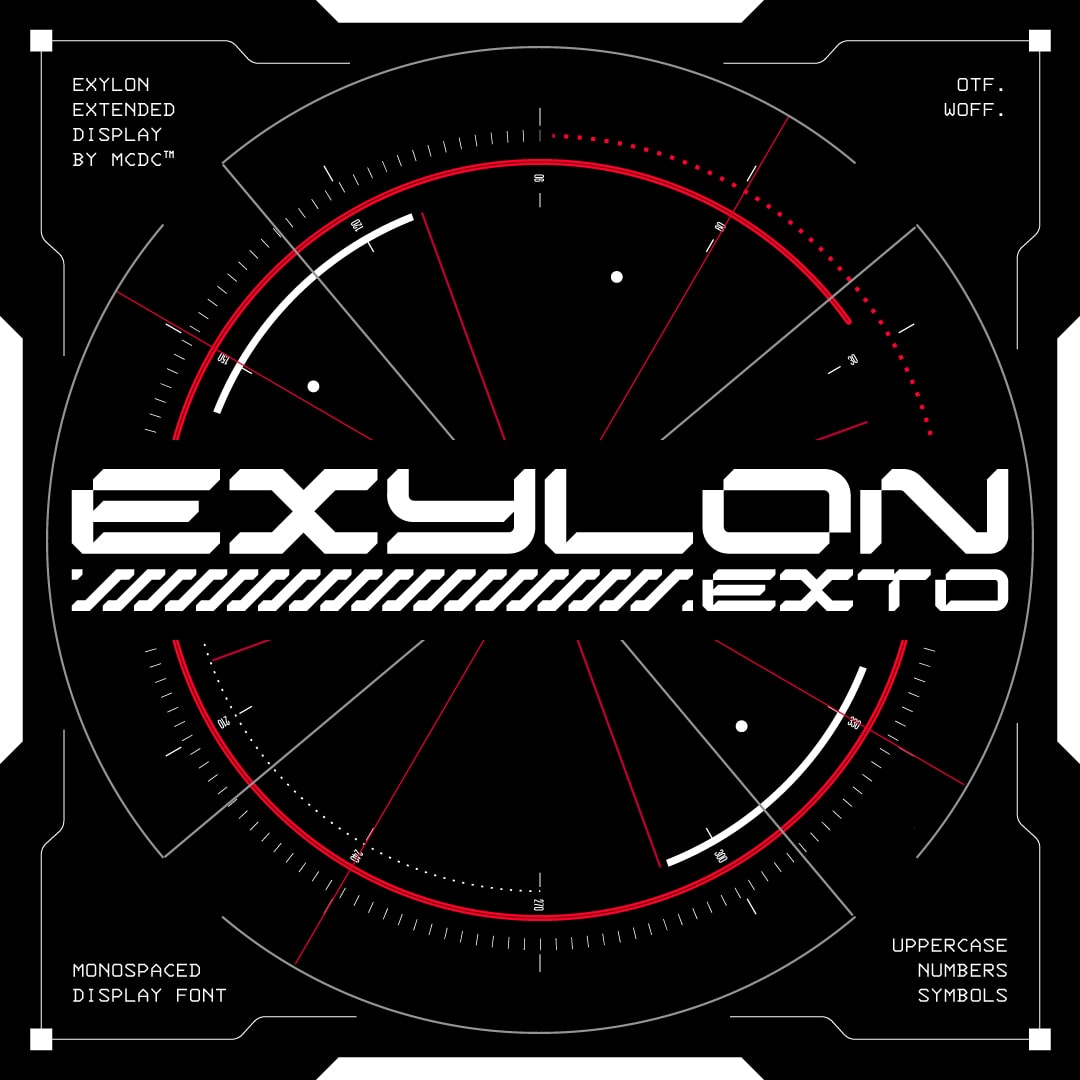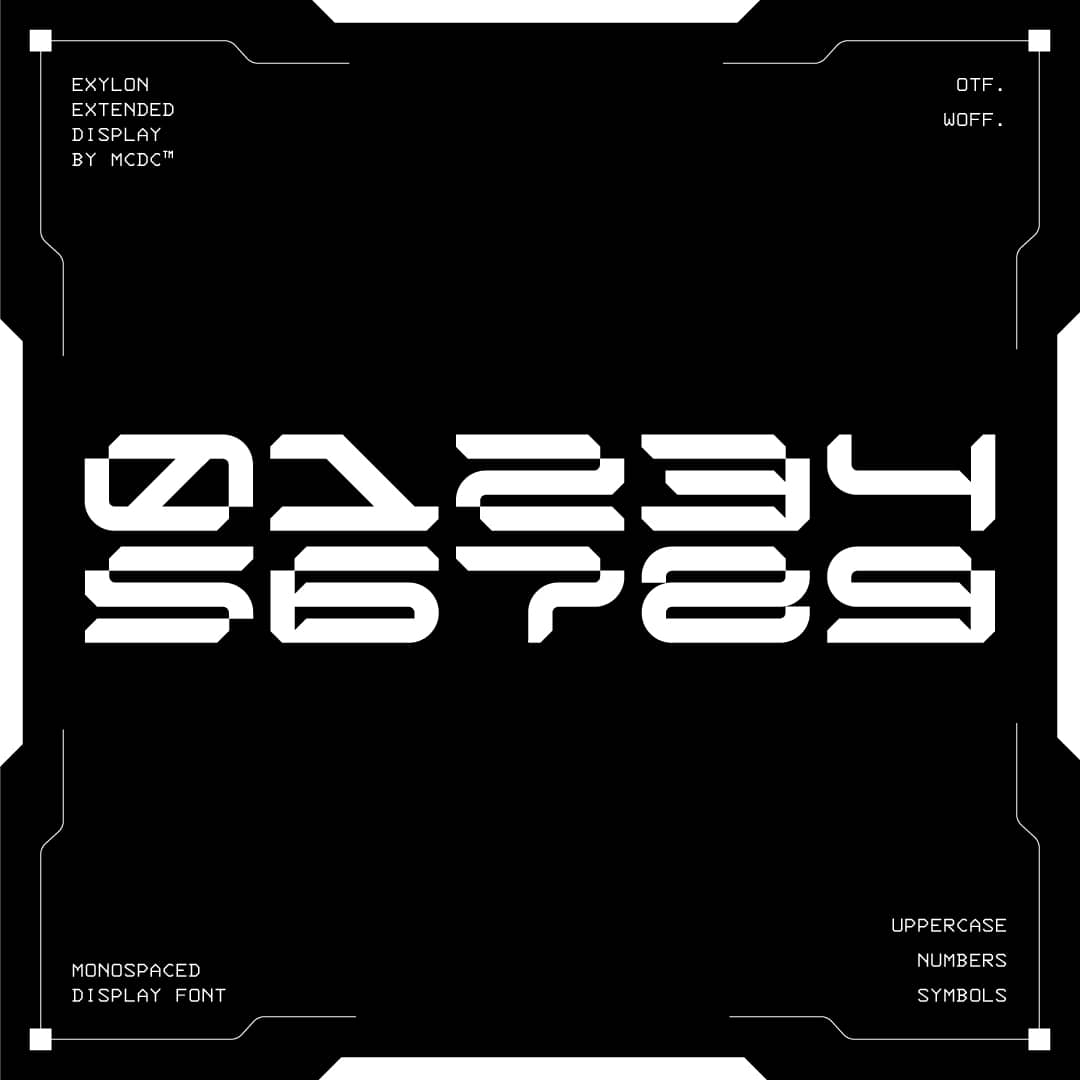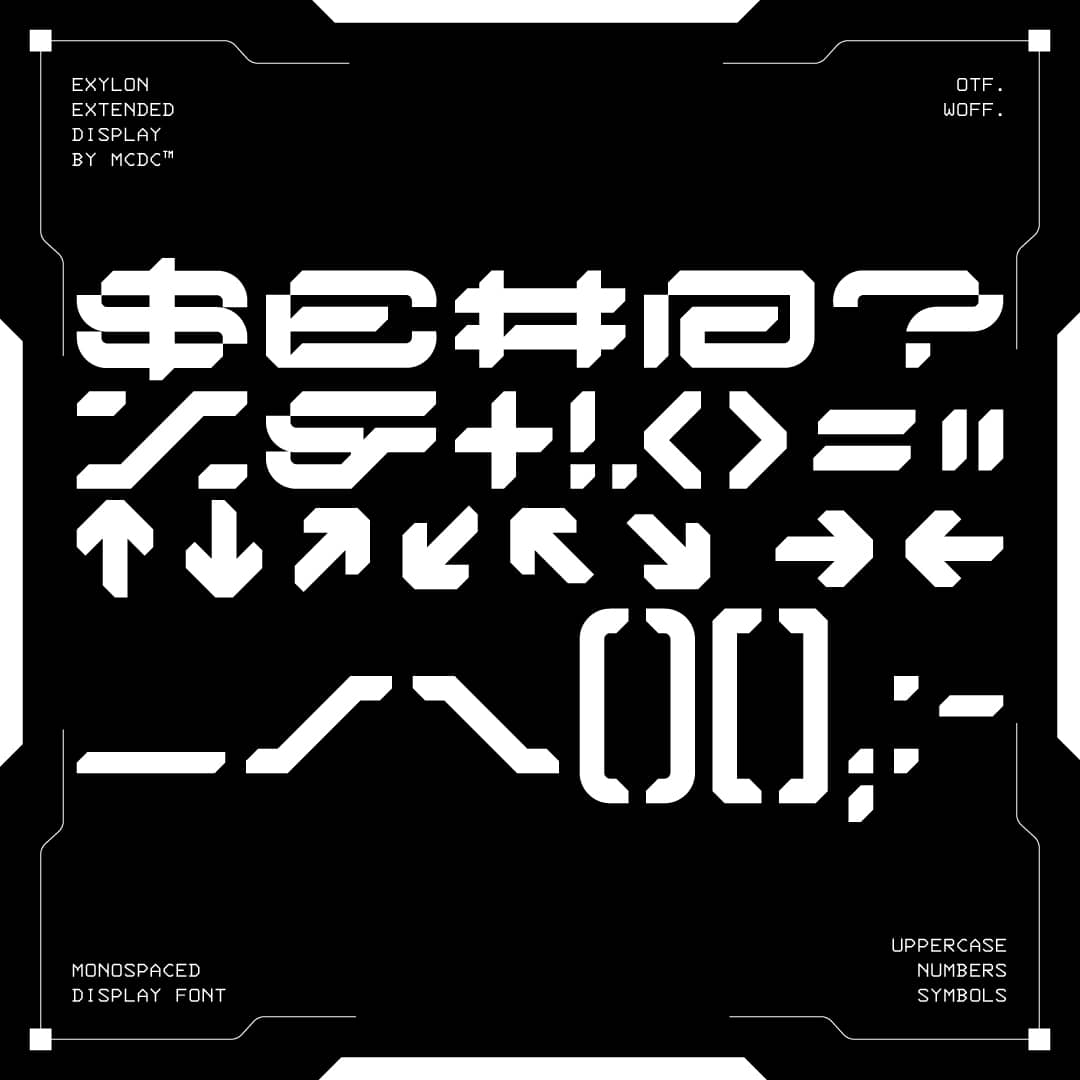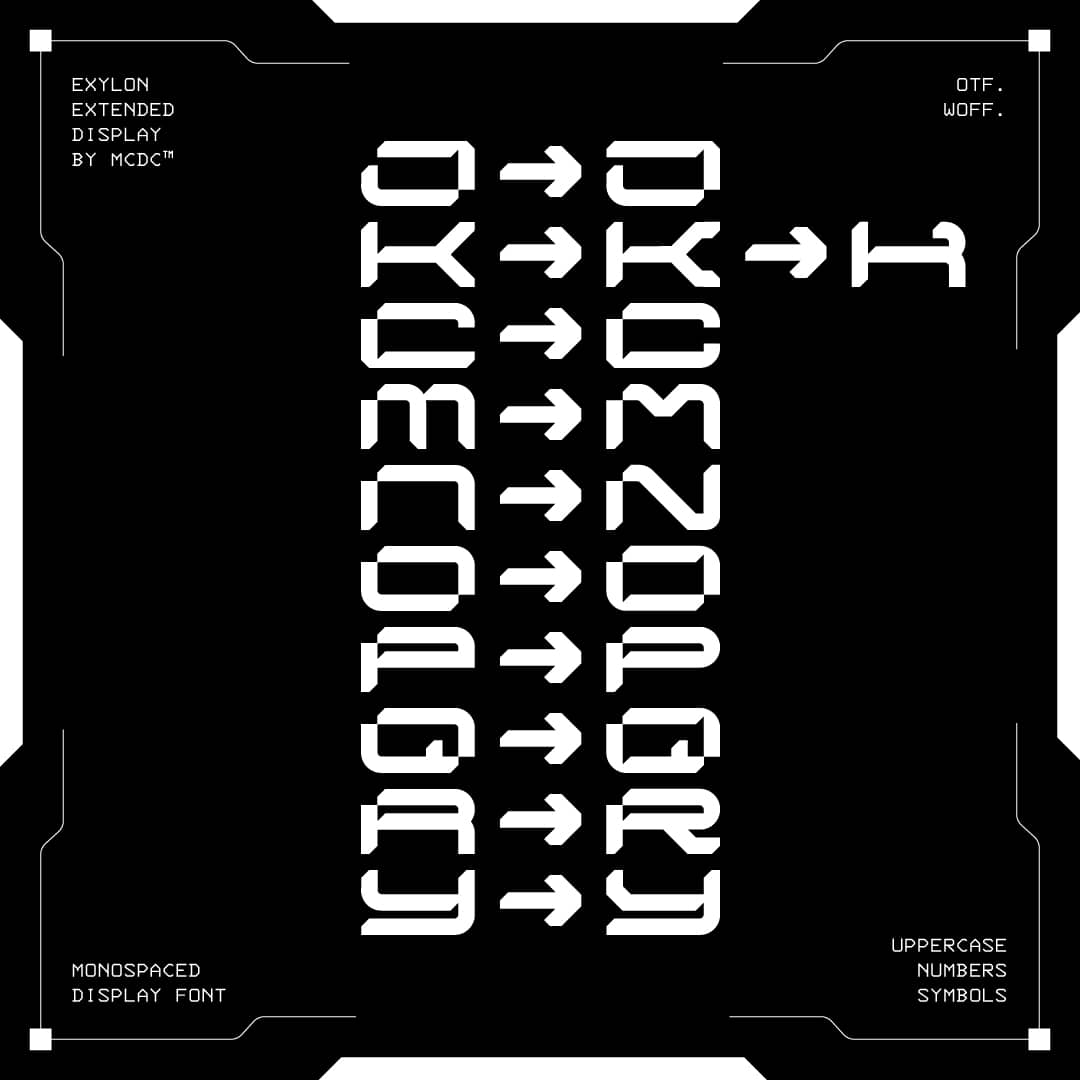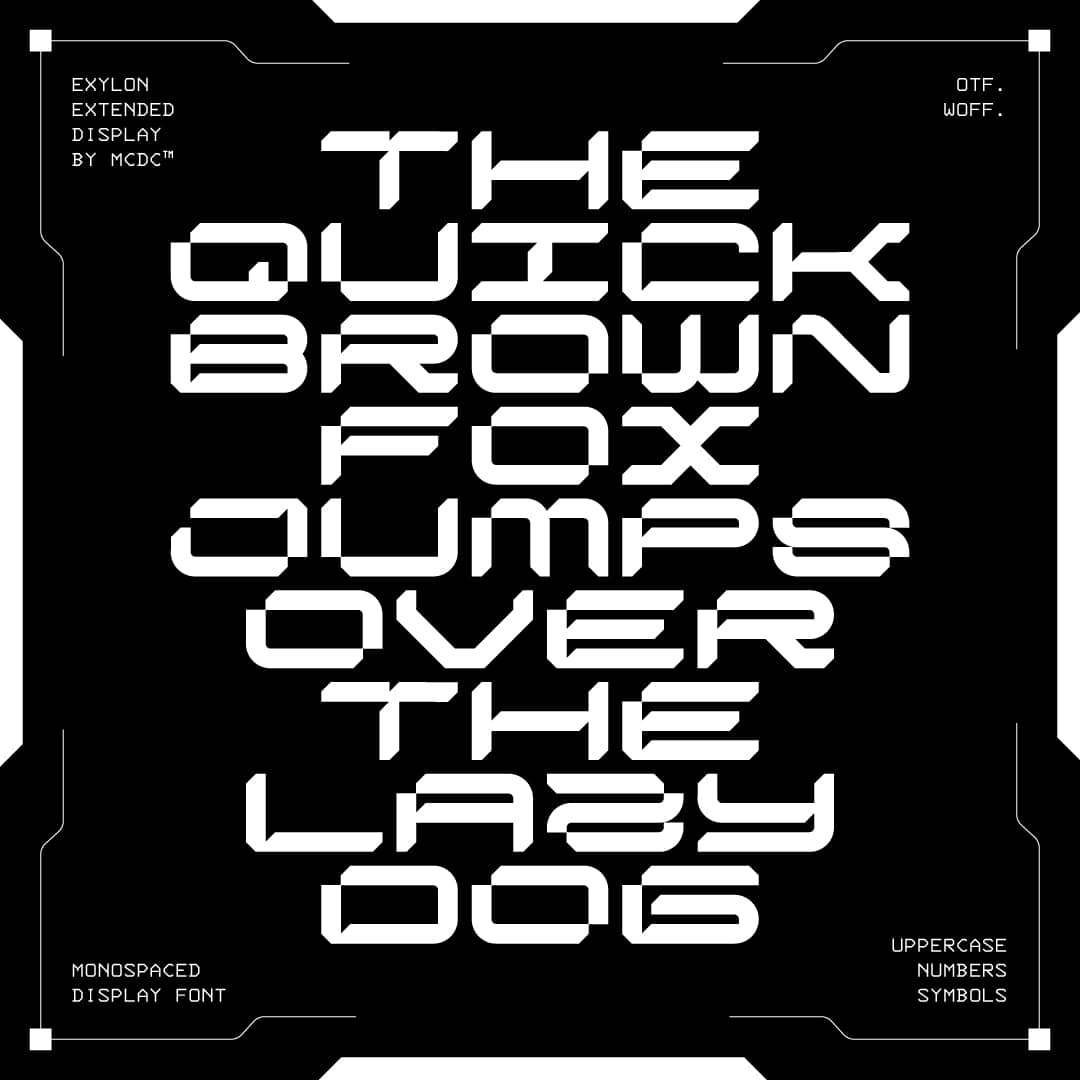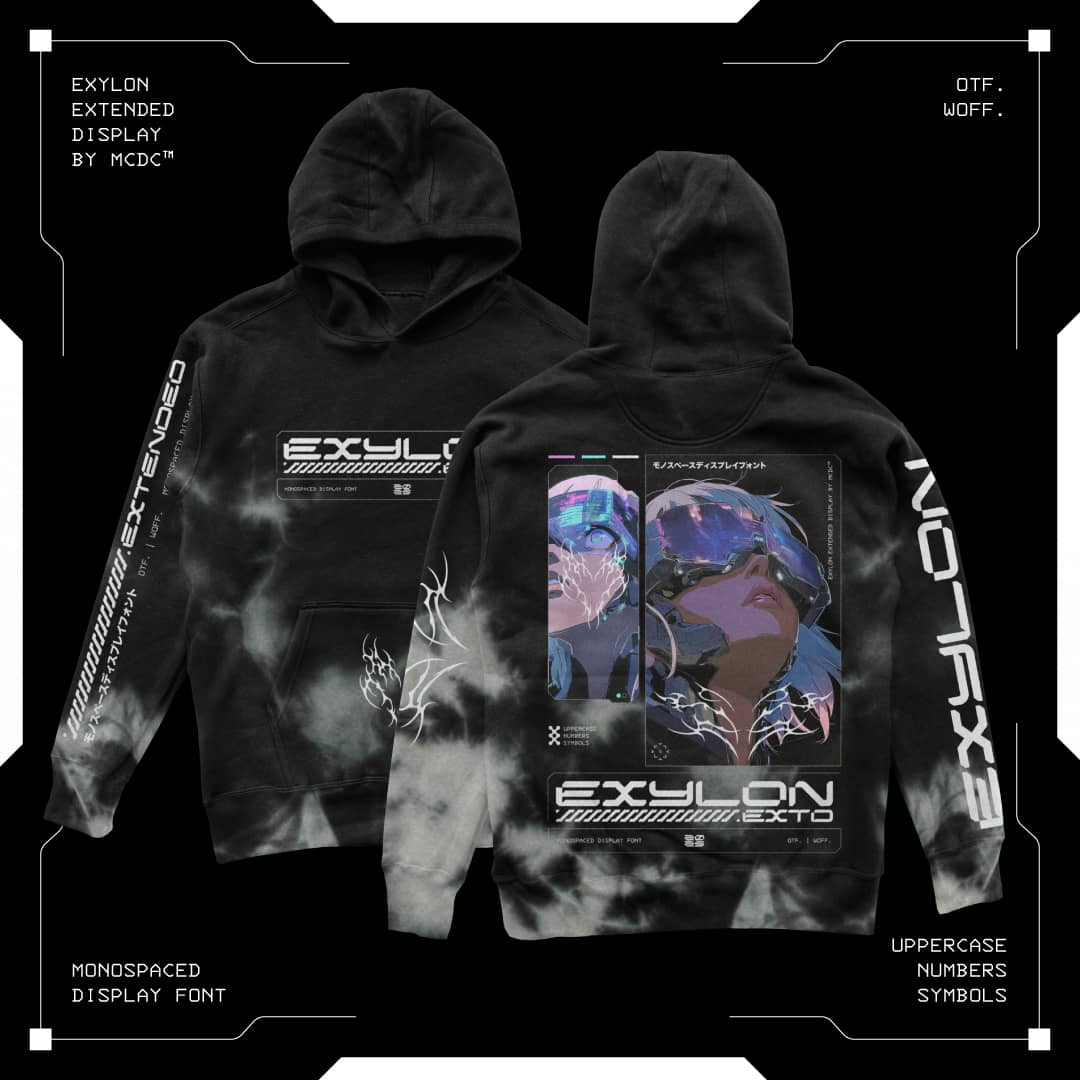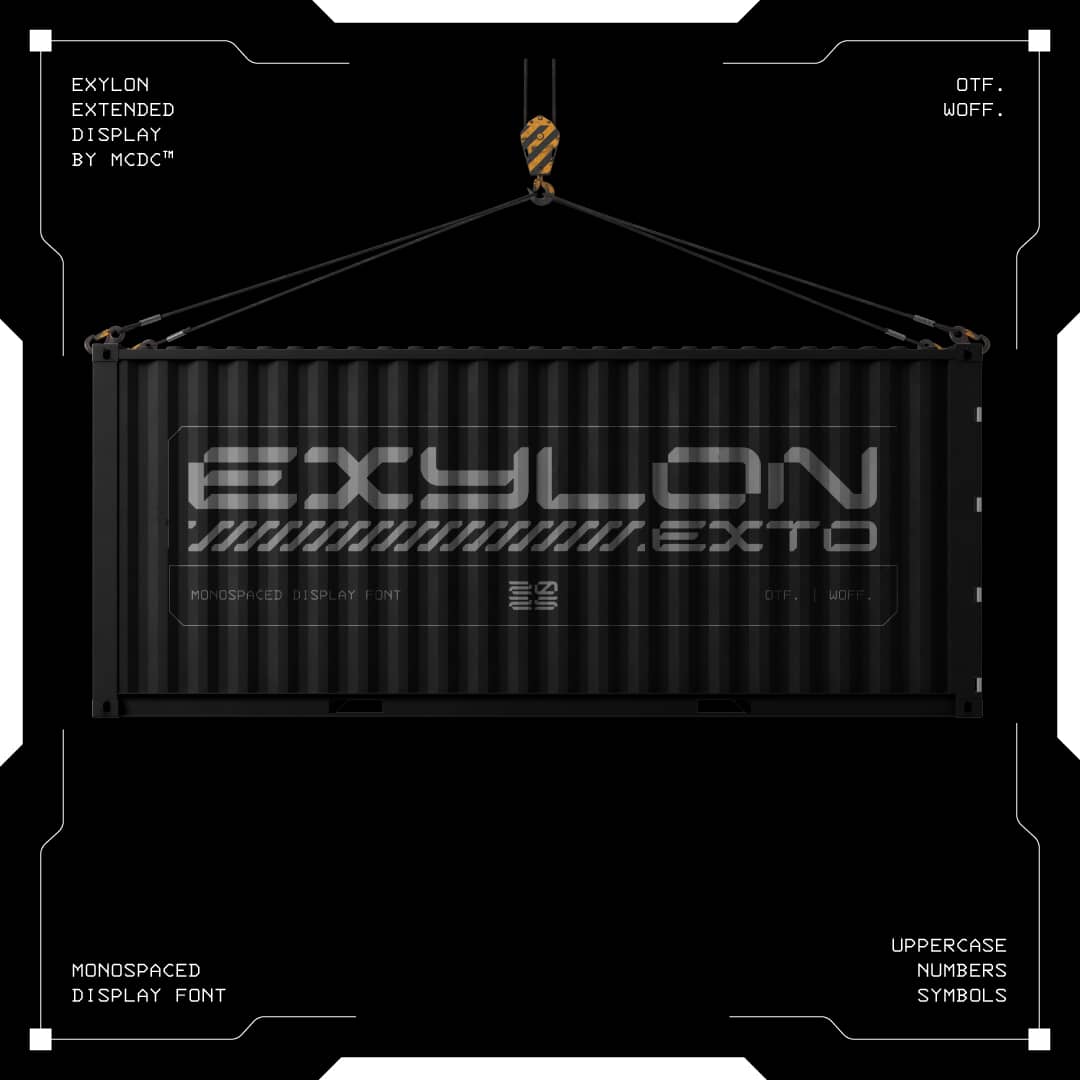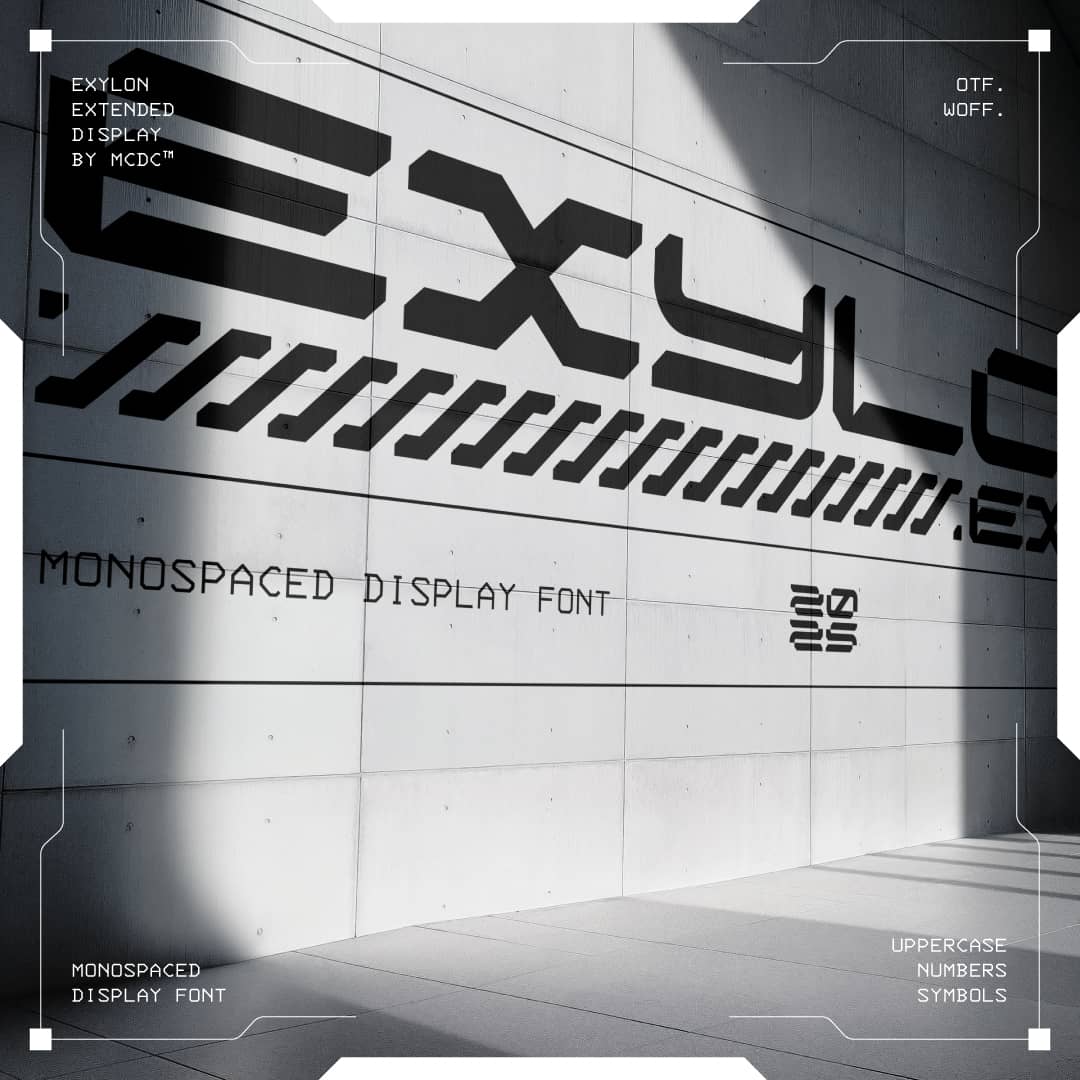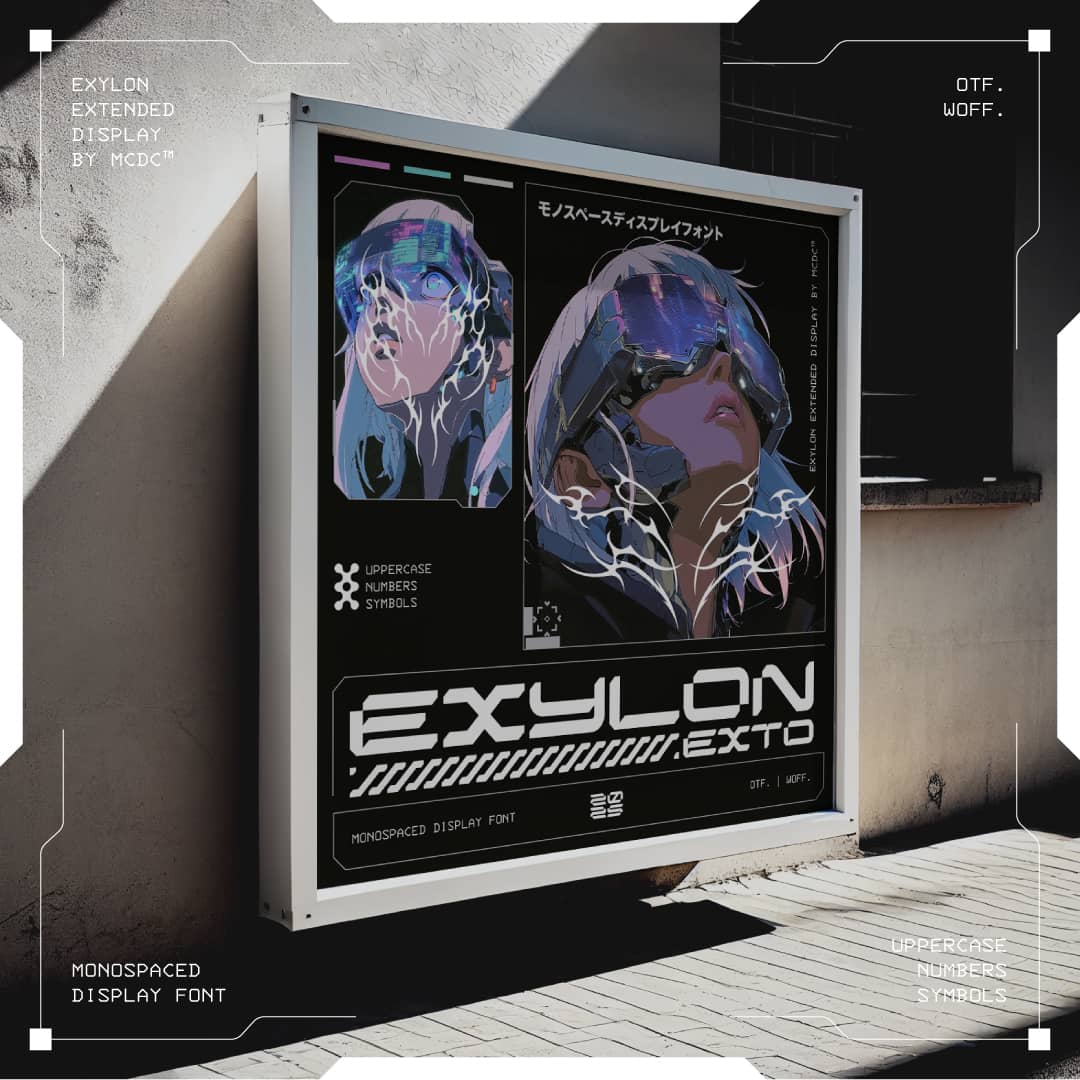
Exylon EXTD
Exylon EXTD is a bold, monospaced display font with a sharp, industrial edge. Built for standout titles, logos, and creative tech visuals, it brings structure and punch to any layout.
+ Uppercase A–Z
+ Numerals 0–9
+ Symbols and punctuation